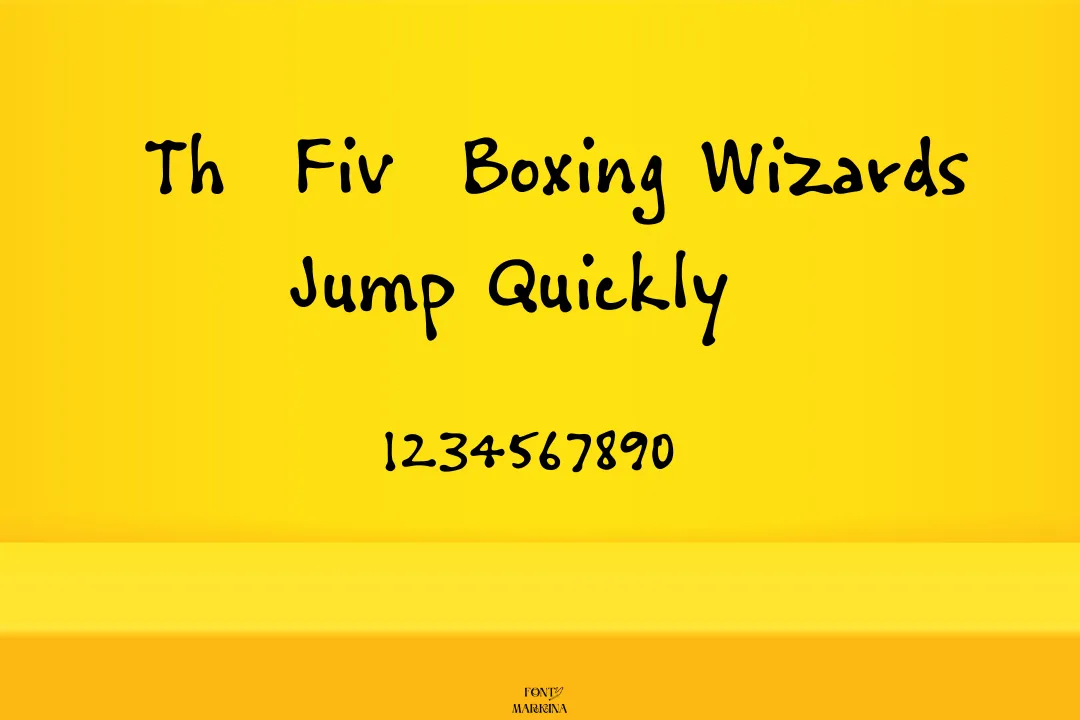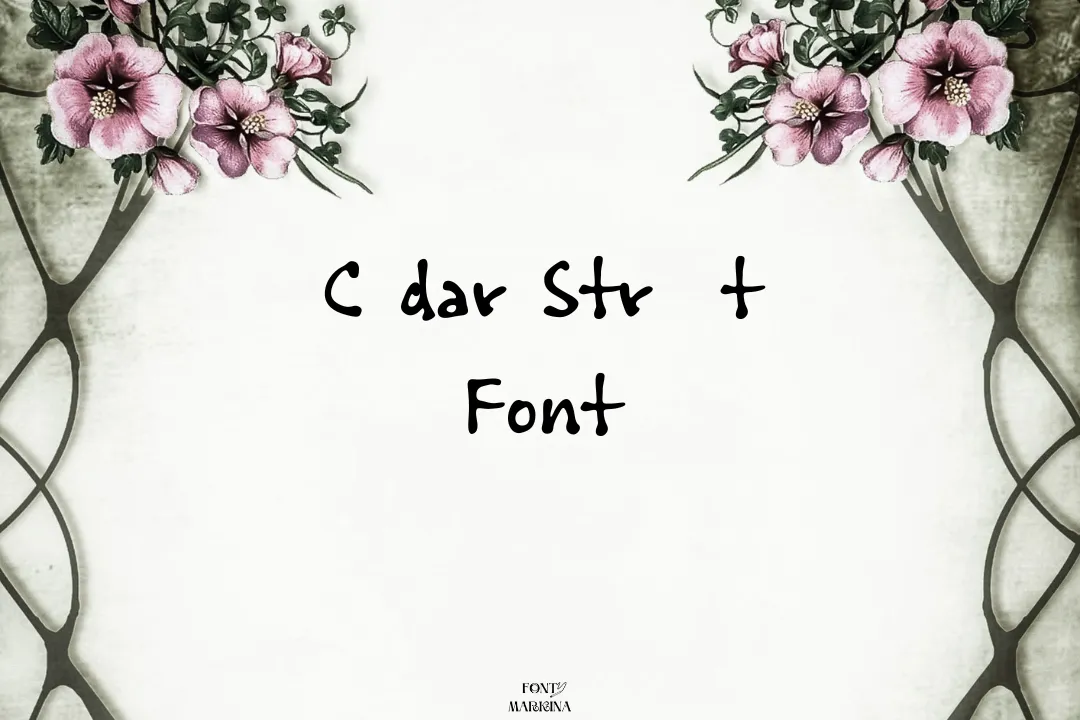
About Cedar Street Font
The Cedar Street Font is a modern font designed by Brian Willson. It is a modern handwritten typeface with a minimalist design and stylish lines. This typography is obtainable in a bunch of weights and classic styles, including regular, bold, and the third one is light.
A font family is a set of related fonts that share common design features but differ in specific details such as weight, height, and style. It includes multiple variations of the font, including Regular, Bold, and Lightweight, each with its own distinct style and usage.
Having multiple variations within a font family allows designers to choose the right typeface for their specific design needs, whether they need a bold font for a headline or a light font for body text. The different weights of this font are designed to work together harmoniously, making it easy for designers to create a consistent and cohesive visual style across a range of design projects.
This stunning texture supports many international languages and characters. You may easily mix this gorgeous texture with Dot To Dot Font and make elegant projects. The font is designed to be legible and versatile, making it a popular choice for designers looking for a sleek and modern typeface. Its generator is well-suitable for graphic designs and you will have to just copy and paste the text into this tool.
Uses of Cedar Street Font
The Cedar Street Font looks like the hand-draw texture and is perfect for various methods and cards. Handwritten fonts refer to typefaces that resemble the natural, free-flowing handwriting style. They are commonly used to add a personal touch to designs and to evoke a sense of warmth and informality. Here are some common uses of this font;
This font Is mostly utilized on invitations and greeting cards to give them a personal, hand-written feel. You may also utilize this font for Logos and Branding which can be used as part of a company’s branding, to give the brand a more personal touch.
It can be used in website headers and titles to give a website a more approachable, friendly feel. Also, you make the pairing of this stylish texture with great wishes font. This stunning texture is suitable to be used on product packaging to give the product a handmade or artisanal feel.
Cedar Street Font View
What is the type of Cedar Street Font?
This typography lies in the classification of handwritten families and it has various styles.